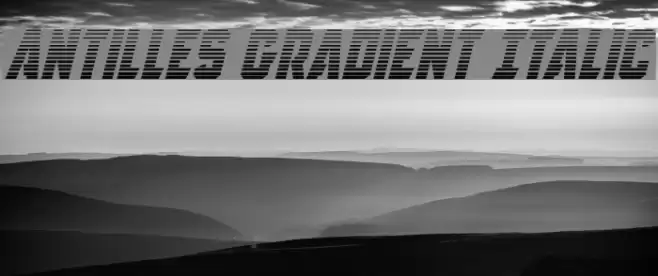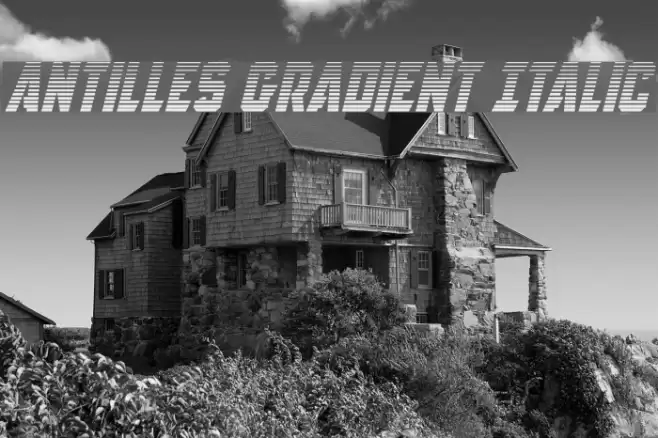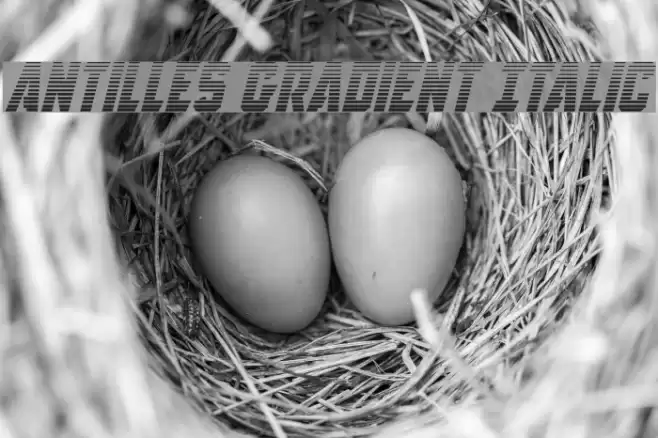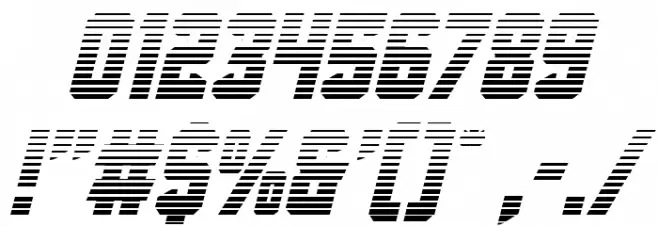
Antilles Gradient Italic Font
Antilles Gradient Italic Description
This font features a bold, italicized style with a distinct gradient effect that gives it a dynamic and modern appearance. The characters are designed with horizontal stripes that create a sense of movement and energy. The uppercase and lowercase letters maintain a consistent width, enhancing readability while adding a unique visual flair. The numerals and special characters follow the same design principles, ensuring uniformity across all glyphs. This font's striking design makes it ideal for projects that require a bold statement.
A bold, italicized font with a dynamic gradient effect and horizontal stripes from Sci-fi fonts.
- Proposed Projects: Perfect for sports branding, dynamic posters, modern advertisements, and digital media projects that require a bold and energetic typeface.